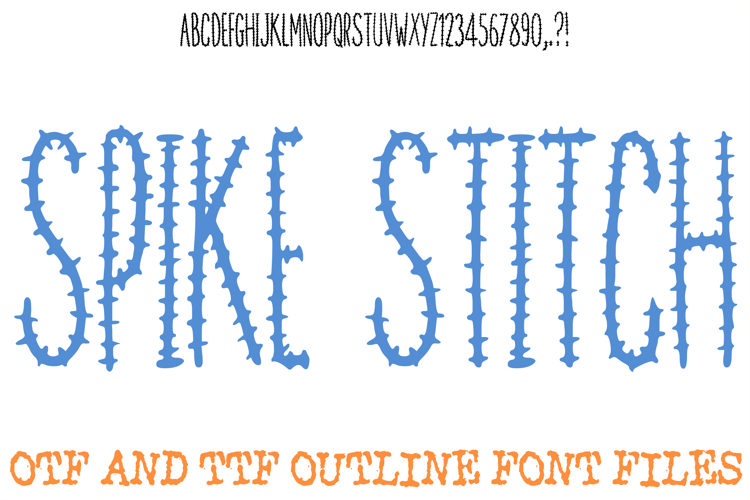
Bring a delightfully quirky, hand-crafted, and slightly edgy aesthetic to your typography with the Spike Stitch Font. Featuring an ultra-tall, condensed structure, each uppercase letter, number, and punctuation mark is detailed with uniform cross-hatched marks along the slender lines. The design beautifully bridges the gap between a cozy, hand-sewn patchwork look and a sharp, alternative gothic vibe, making it an incredibly striking display choice for seasonal or unconventional themes.
Delivered as an installable typeface, this outline structure offers ultimate creative flexibility. It serves as an excellent resource for a designer who wants to add custom color blocks underneath the line art, drop shadows, or grunge textures. The crisp, clean linework scales perfectly within any creative software for seamless printing and digital layouts.